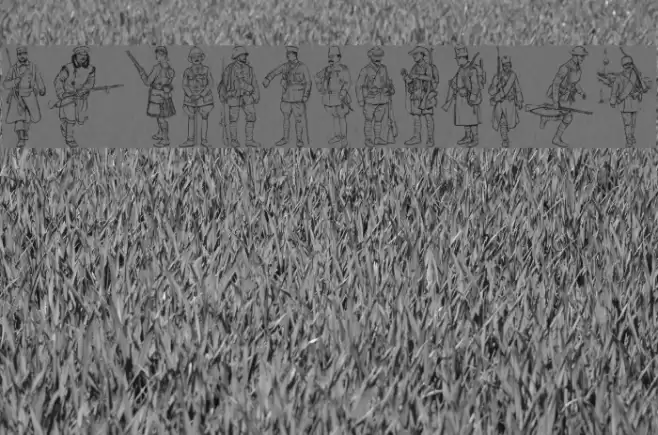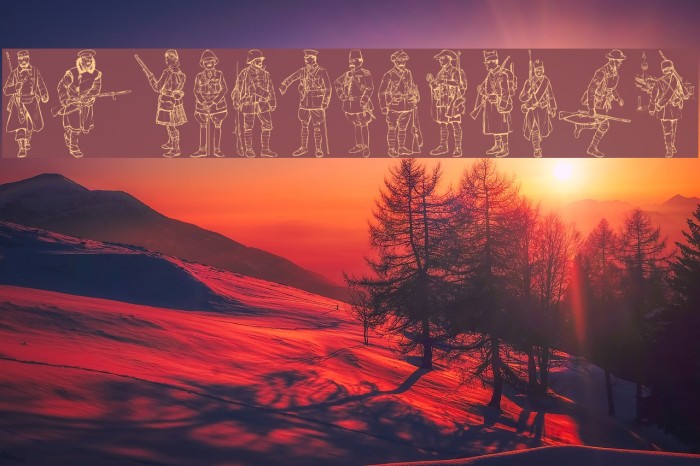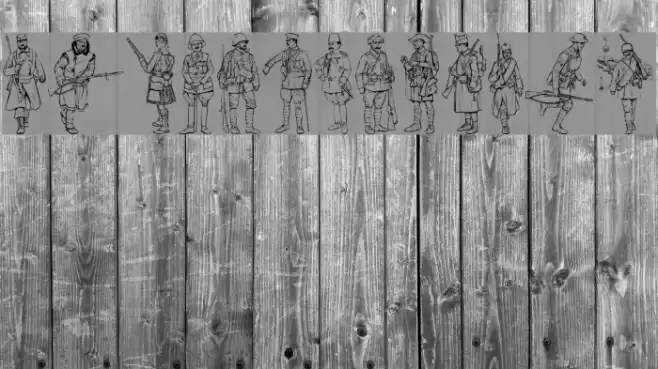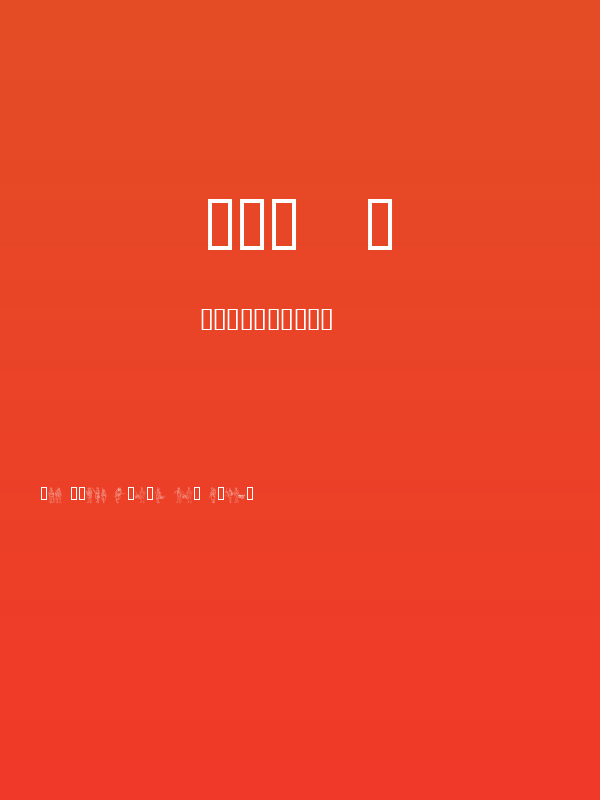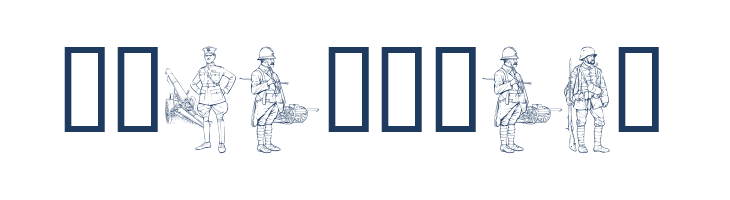
WW1 A Font
WW1 A Description
This image does not display a valid font; it features illustrations of World War I soldiers and placeholder boxes instead of recognizable letterforms or numerals.